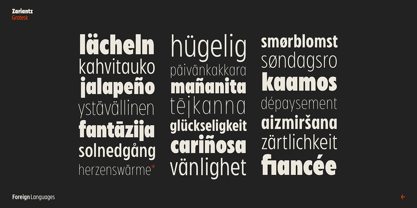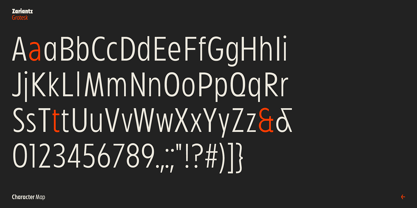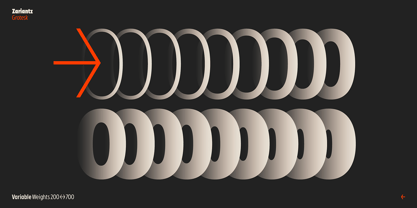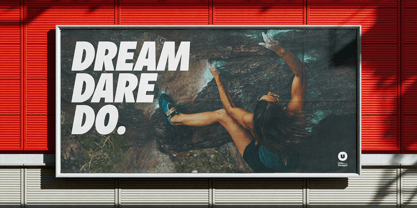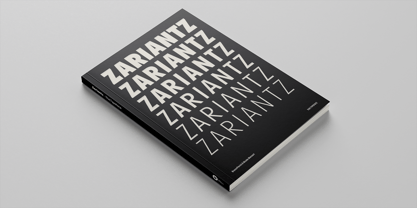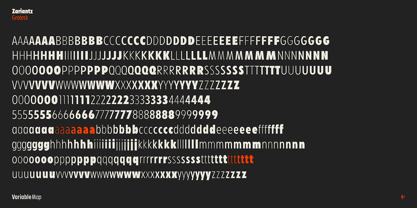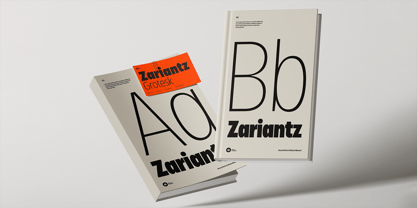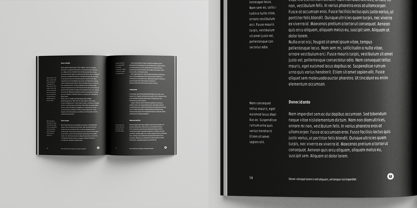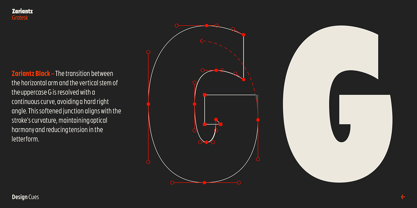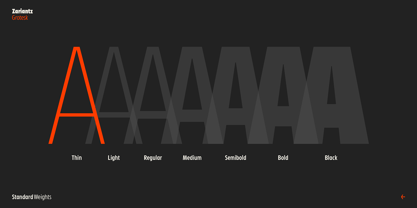
Zariantz Grotesk
Zariantz Grotesk Variable is a contemporary sans serif typeface inspired by a quiet walk through the streets of Casamassima, Puglia—where a commemorative plaque honors Hrand Zariantz, an Armenian-Italian writer, poet, and journalist. That moment sparked the creation of a versatile variable font designed for modern typographic needs.
Rooted in a narrow grotesque structure, Zariantz Grotesk balances handcrafted expression with geometric clarity. Every curve and counter has been shaped with visual precision, resulting in a typeface that adapts seamlessly from branding to editorial, digital interfaces, and large-scale display.
From clear signage to refined text, this typeface was built with flexibility and function at its core. The result is a modern, humanist voice that conveys rhythm, movement, and clarity across every weight and axis.
Zariantz Grotesk Variable also features an advanced OpenType toolkit: old-style figures, case-sensitive forms, alternate glyphs, multilingual support, numerators and denominators (0–9), ligatures, and a distinctive set of multidirectional arrows. Every detail contributes to a professional-grade type system ready for dynamic, expressive design.